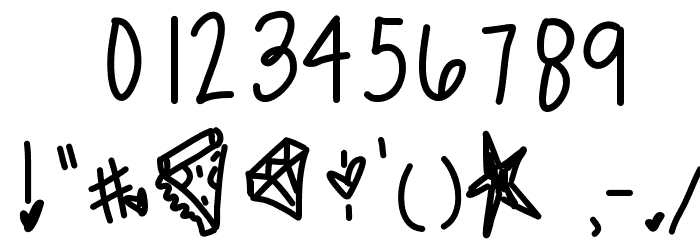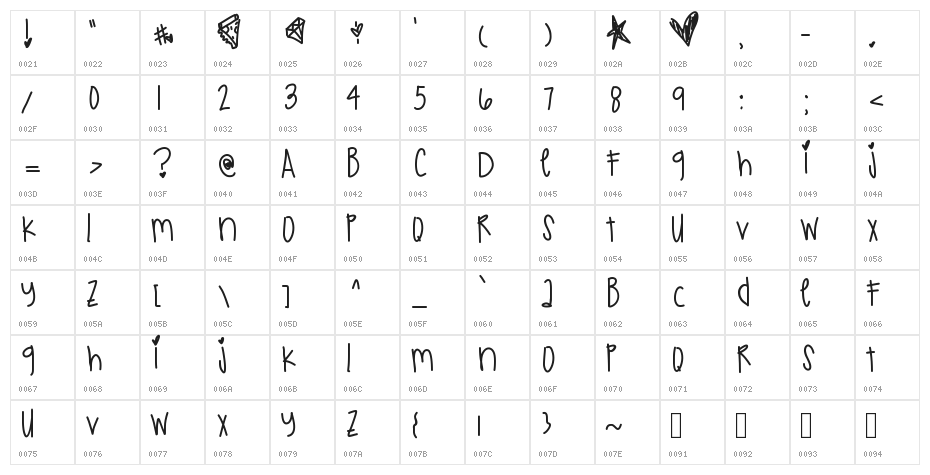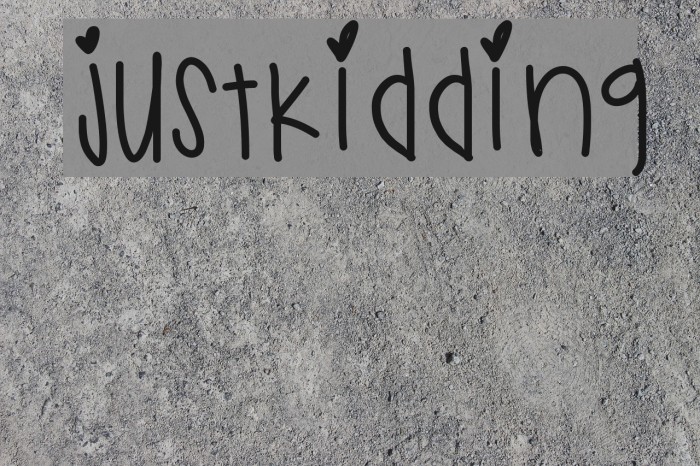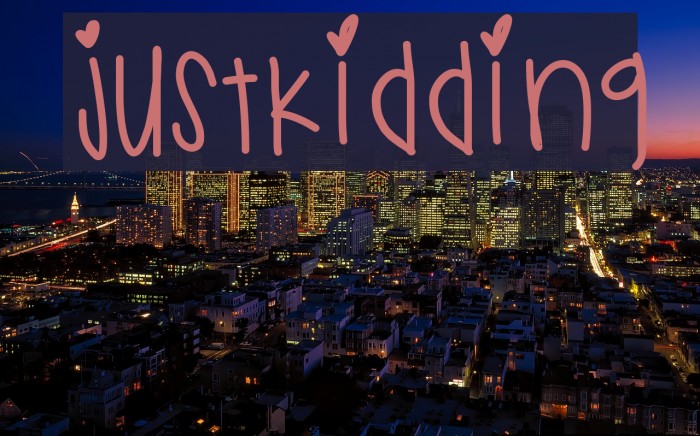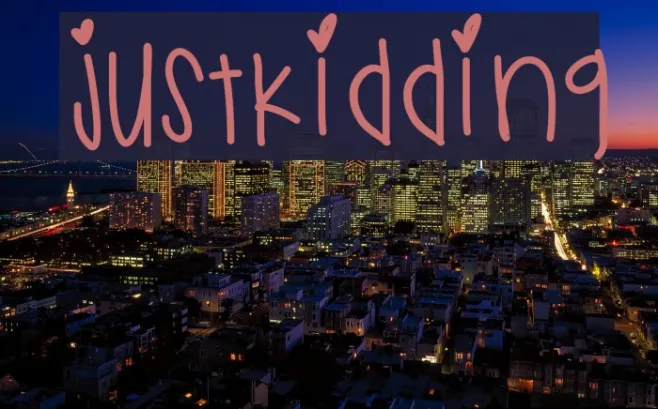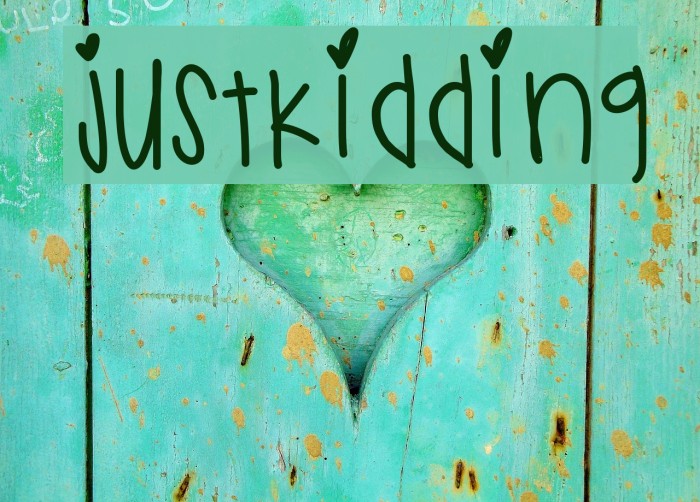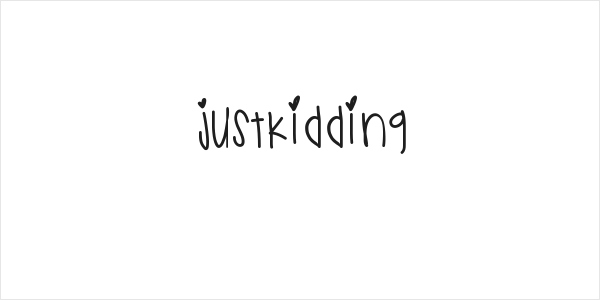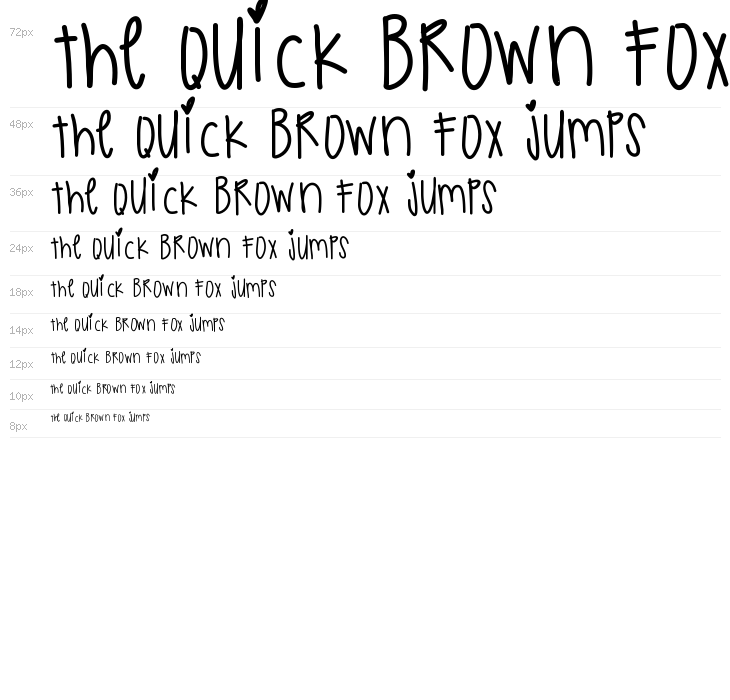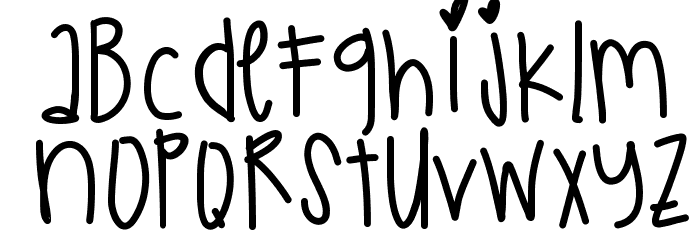
This playful and whimsical font features a handwritten style with a casual, informal appearance. The letters are slightly irregular, adding a personal touch and charm. The font includes decorative elements such as hearts above certain letters, enhancing its playful nature. It is characterized by its tall, narrow letterforms and a consistent stroke width, giving it a clean yet lively look. The numbers and special characters maintain the same playful aesthetic, making it versatile for various creative projects.
| Use Case | Headlines, Logos, Social media graphics |
| Proposed Projects | Ideal for children's books, greeting cards, playful branding, and social media graphics. |